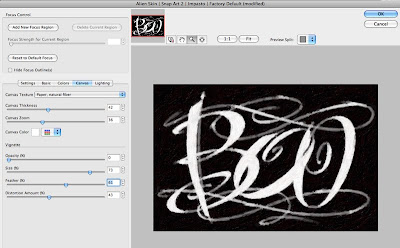
One of the sketches was imported to Illustrator as a template. I began to draw the basic letter shapes with the pen tool. The line paths were offset by 9 points to create the letterform outlines.
Next, I shaped the outlines to the desired widths.
After drawing and adjusting the letters and flourishes I imported a screen shot to Photoshop and inverted the color. I blurred the image to soften the letters.
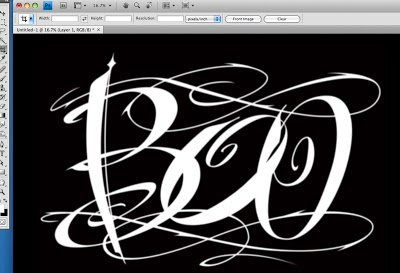
Final step was to apply the Alien Skin Snap Art Impasto filter. I played with a number of settings to get the ghost like appearance and voilĂ .